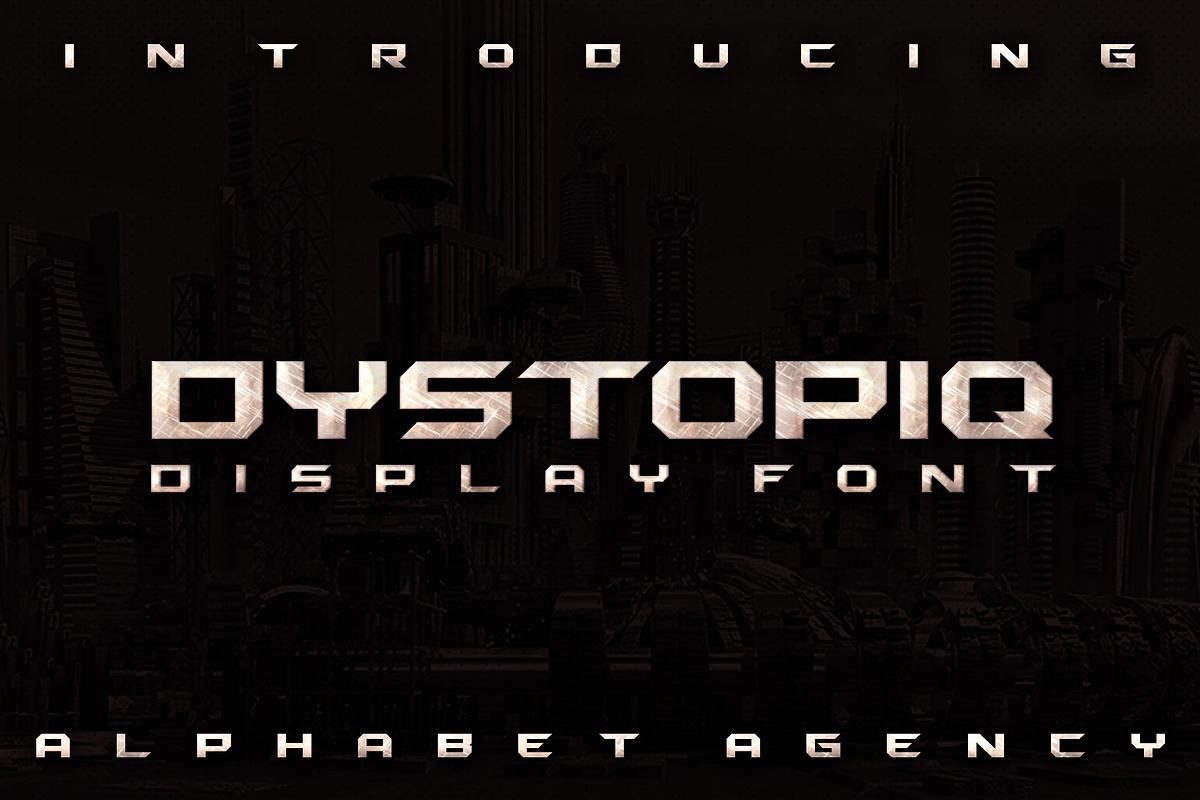
DYSTOPIQ FONT Free Download
DYSTOPIQ Font Free Download is a gritty, high-impact typeface crafted for dark, futuristic, and cyberpunk-inspired designs. With its sharp, fragmented edges and post-apocalyptic vibe, DYSTOPIQ is perfect for game titles, sci-fi posters, tech branding, streetwear designs, and anything that lives on the edge of bold and chaotic. It captures the spirit of dystopian worlds with a raw, digital attitude.
Using the DYSTOPIQ Font Free Download instantly gives your design a cinematic, high-stakes feel. Whether you're designing for a video game interface, a hacker-themed event, or edgy apparel graphics, this font commands attention with its unique structure and high-energy presence.